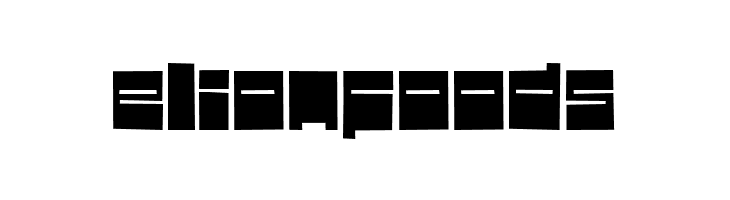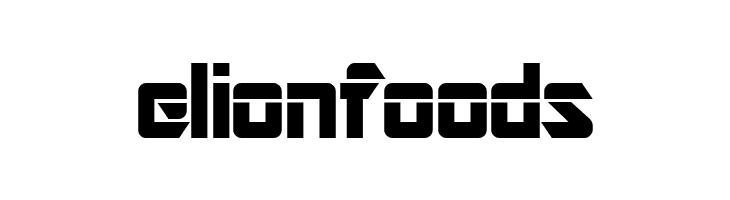
A futuristic, geometric font with angular and linear strokes.
A bold, geometric font with a modern, futuristic style.
A bold, geometric font with a futuristic and angular design.
A modern, wide, and geometric font with a futuristic, mechanical feel.
A geometric, futuristic font with angular and linear characters.